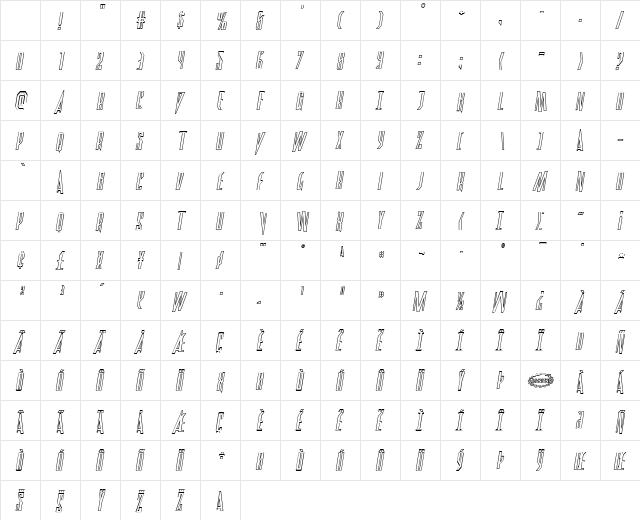
Complete Archnemesis Outline Semi-Ital Regular glyph index. Displaying only characters natively supported by Archnemesis Outline Semi-Ital Regular font.
Archnemesis Outline Semi-Ital is built around its visual character rather than neutral utility - its distinctive forms are designed to make an impression at display sizes.
Font Pairing: Pair with a clean neutral sans-serif for body copy to let Archnemesis Outline Semi-Ital's character lead without overwhelming the composition.
Pro Tip: Use Archnemesis Outline Semi-Ital exclusively at display sizes - it was designed to be seen, not read at length. Let a neutral companion handle body copy.